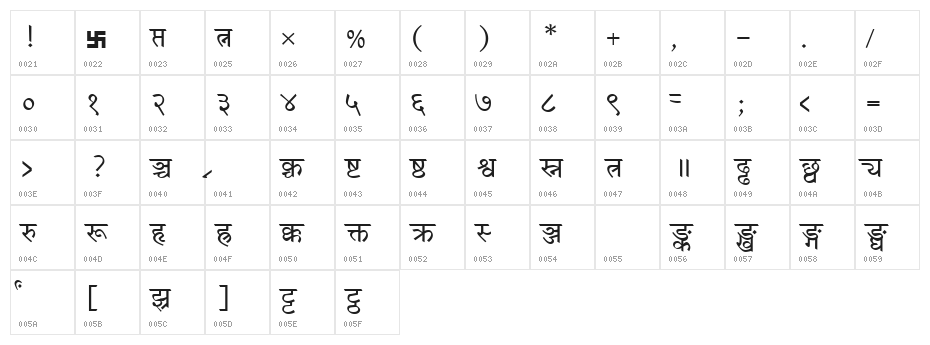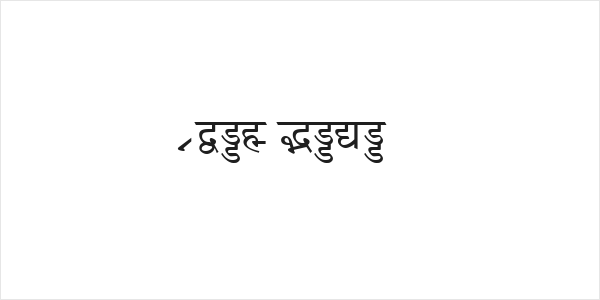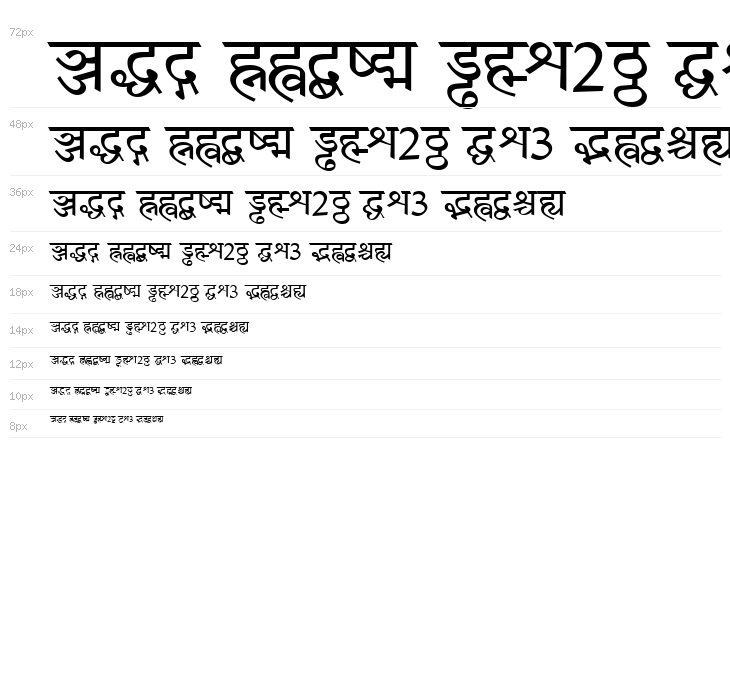
Amar Ujala Font
Amar Ujala Description
This font features a traditional Devanagari script with bold, clear strokes that emphasize readability and cultural authenticity. The characters are well-defined, maintaining a consistent weight throughout, which enhances legibility. The numerals are distinct and align well with the overall style, providing a cohesive look. Special characters are included, adding versatility for various uses. The script's design is rooted in cultural heritage, making it suitable for projects that require a traditional yet modern touch.
| Overall Style | Traditional |
| Use Case | Headlines, Cultural texts, Educational materials |
| Proposed Projects | Ideal for cultural publications, educational materials, traditional branding, and any project requiring a touch of cultural heritage. |